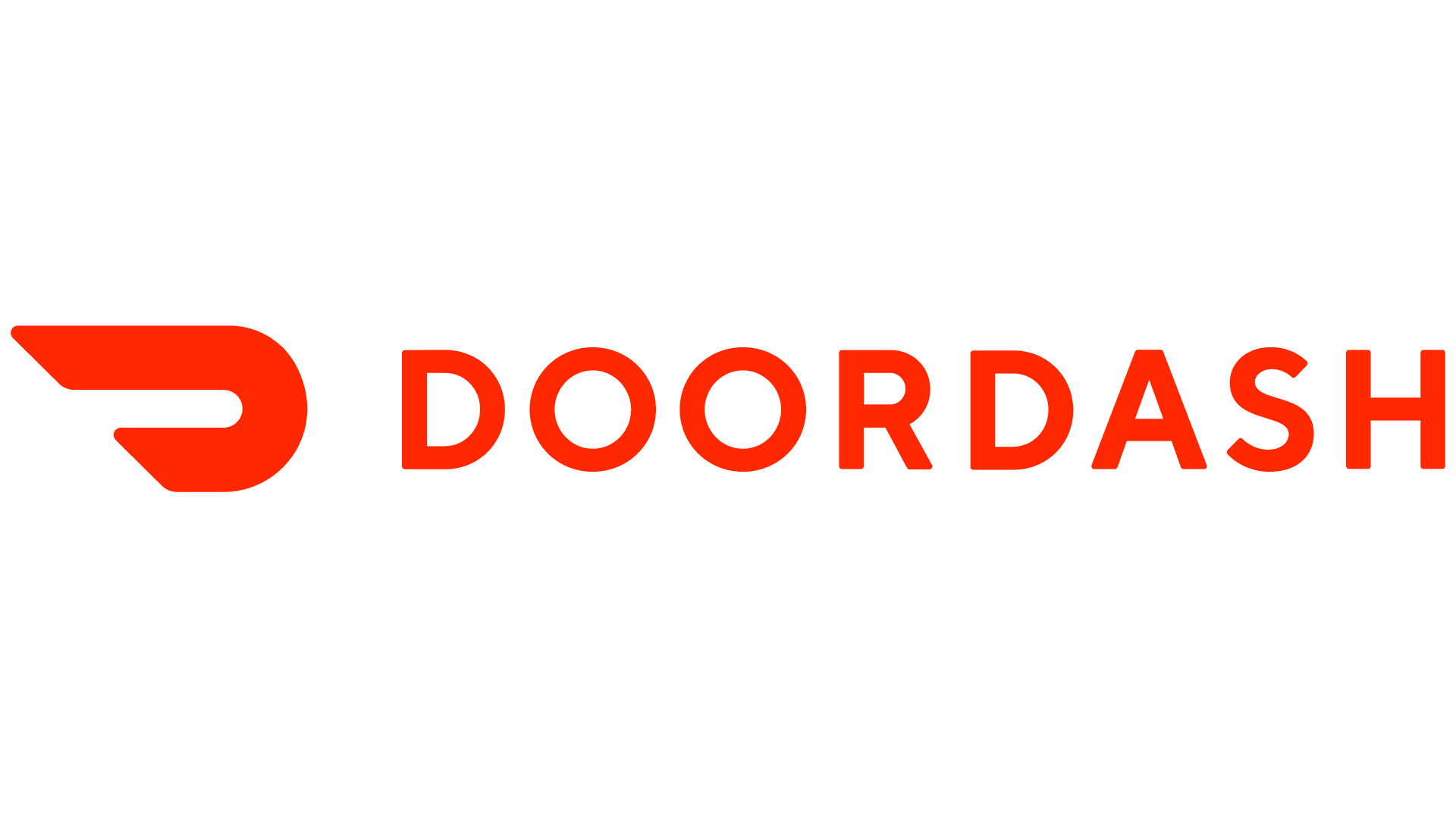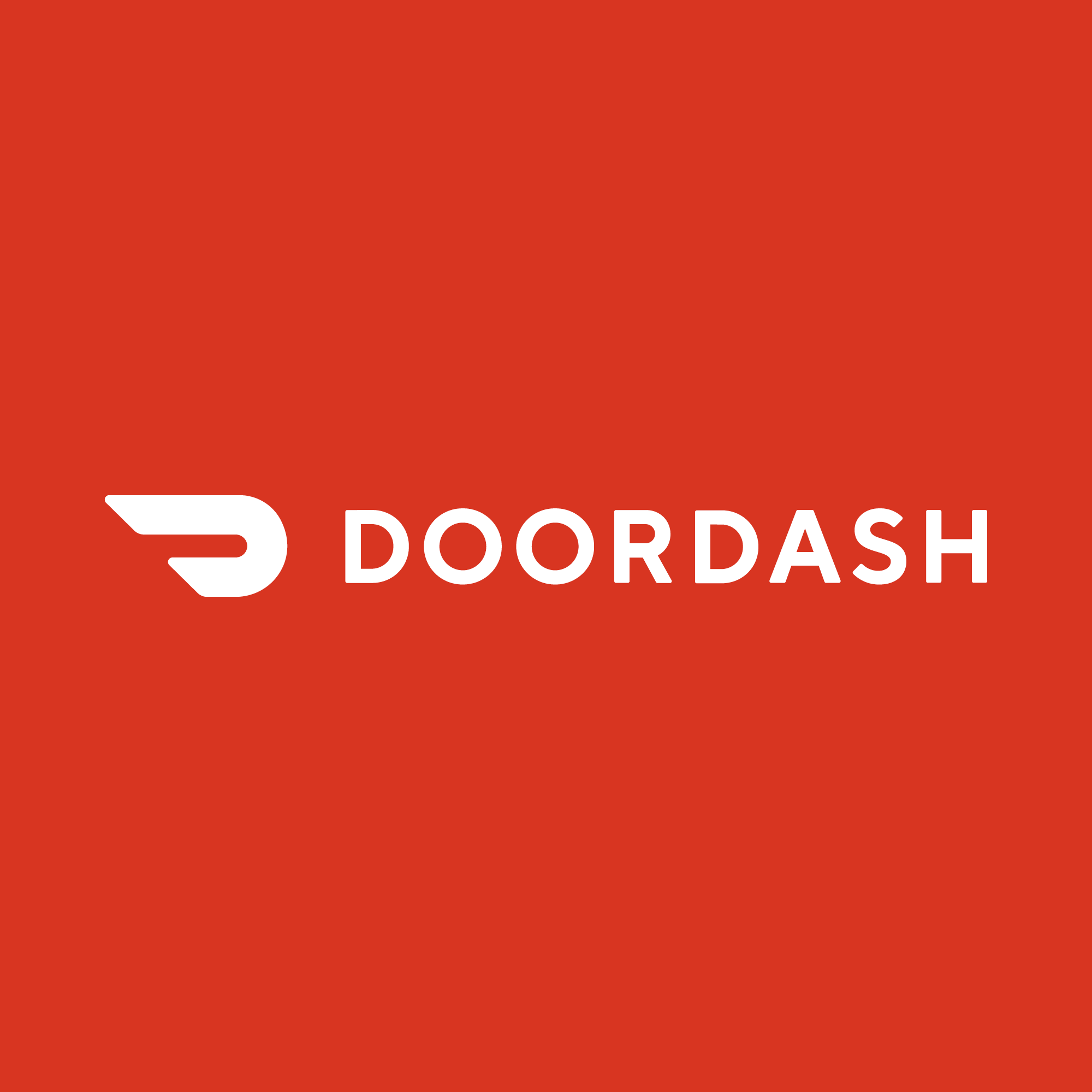
Doordash Logo Font . It does not meet the threshold of originality needed for copyright. Therefore, the doordash logotype and font signifies precision and speed with a clean and straightforward emblem that works a treat. By early 2021, it served nearly 20 million consumers and one. This logo image consists only of simple geometric shapes or text. Horizontal lines not only connote motion but also. Since the 2018 rebrand by character (now michael kent allen), tt norms pro is used for the website and. Find out why it's a modern, friendly, and. What is the doordash font called? Doordash is a large global online food ordering and delivery service.